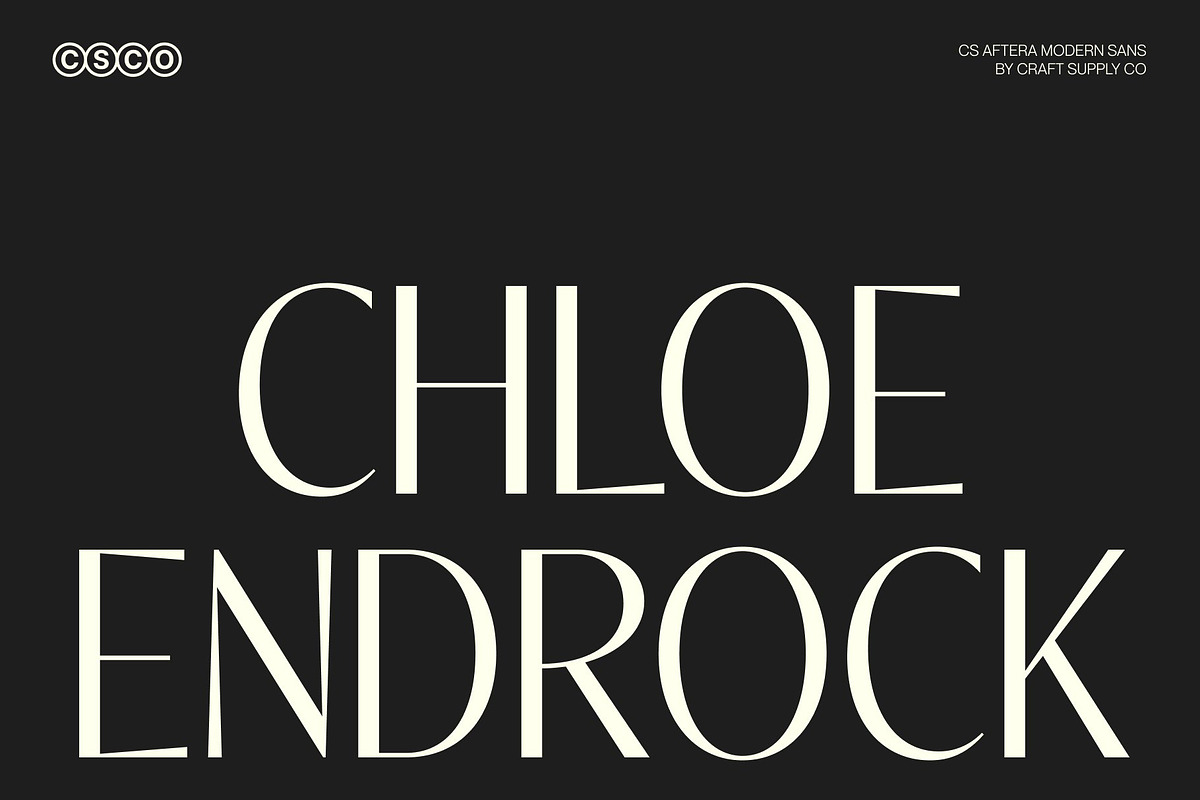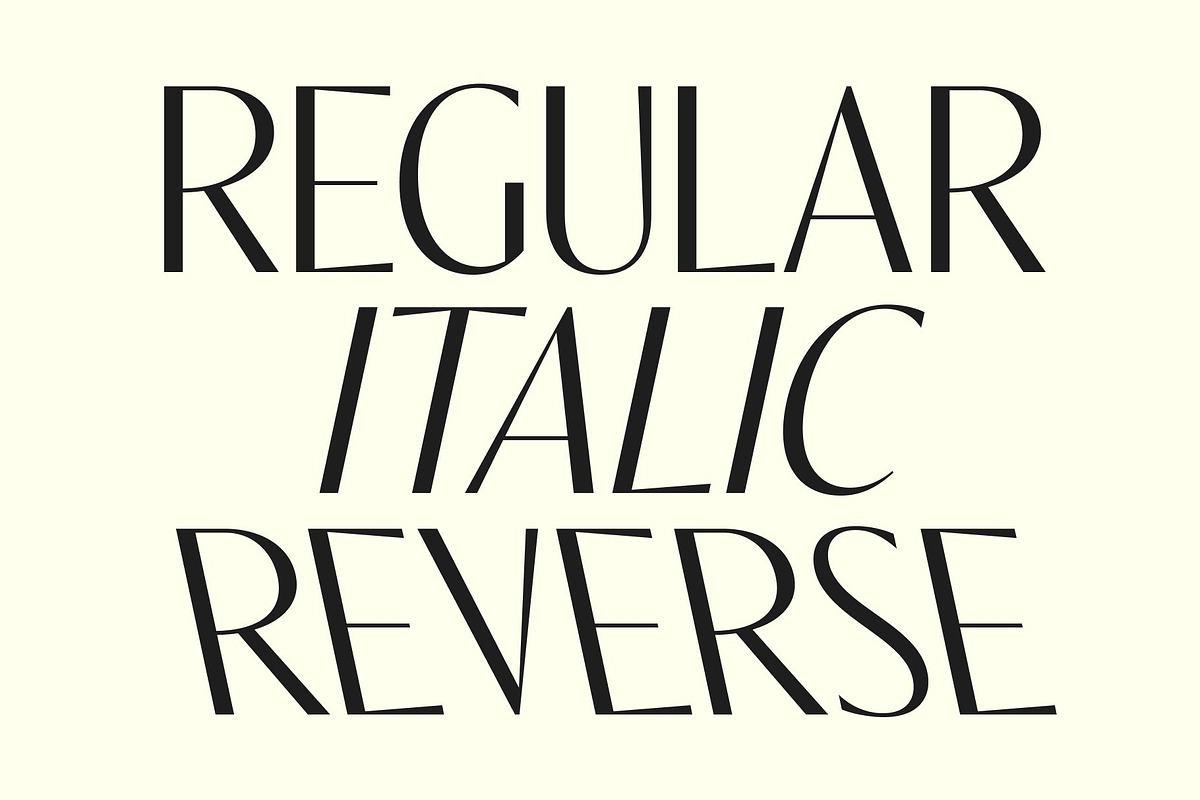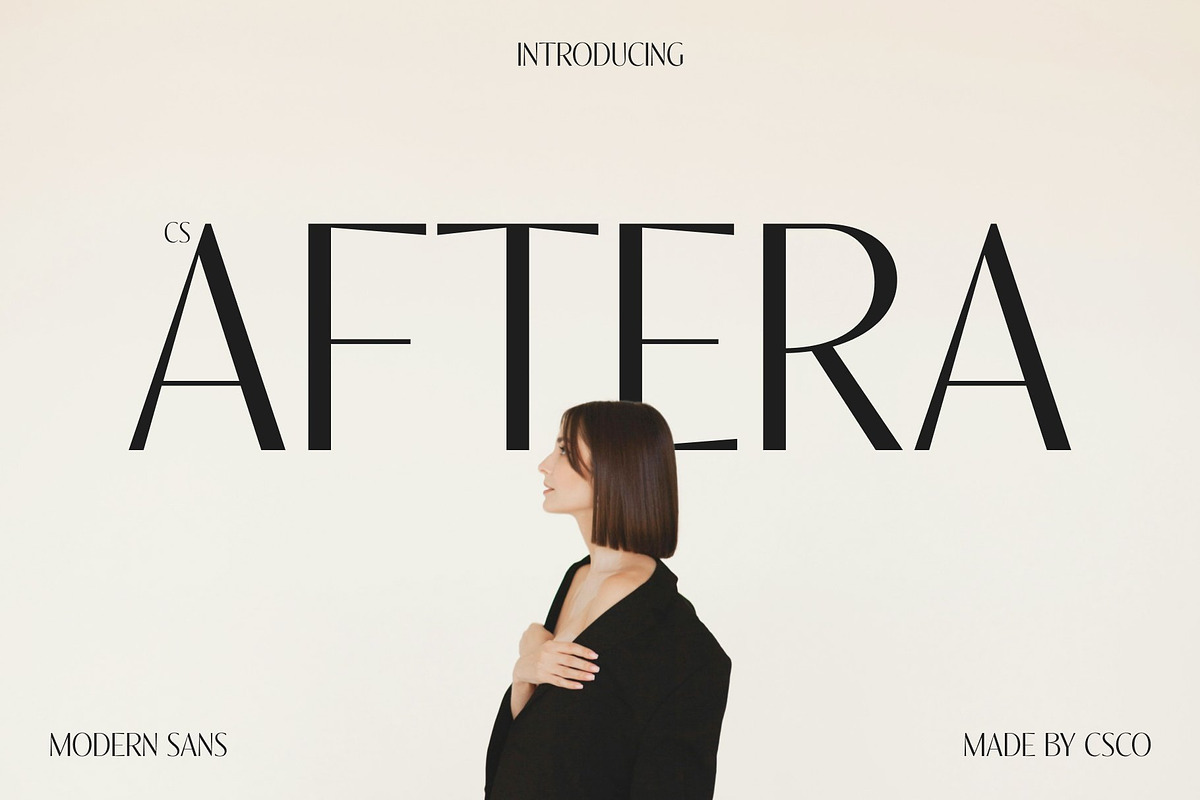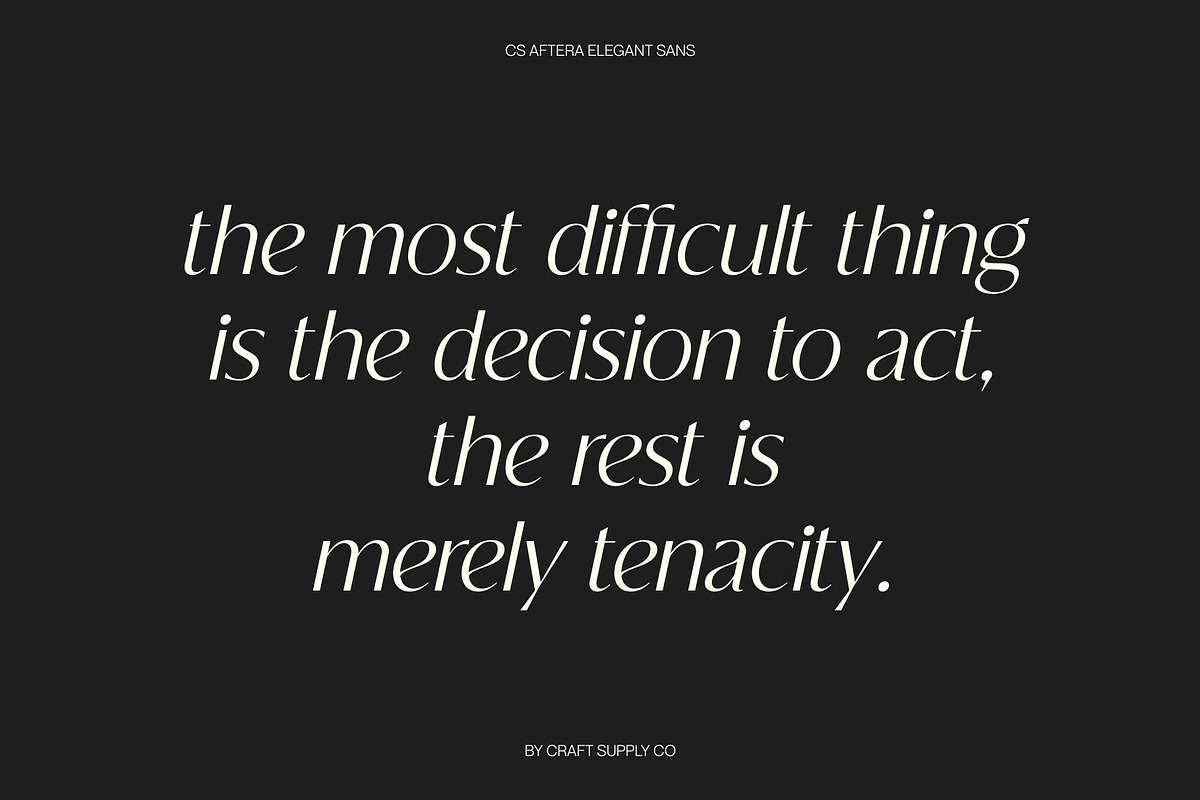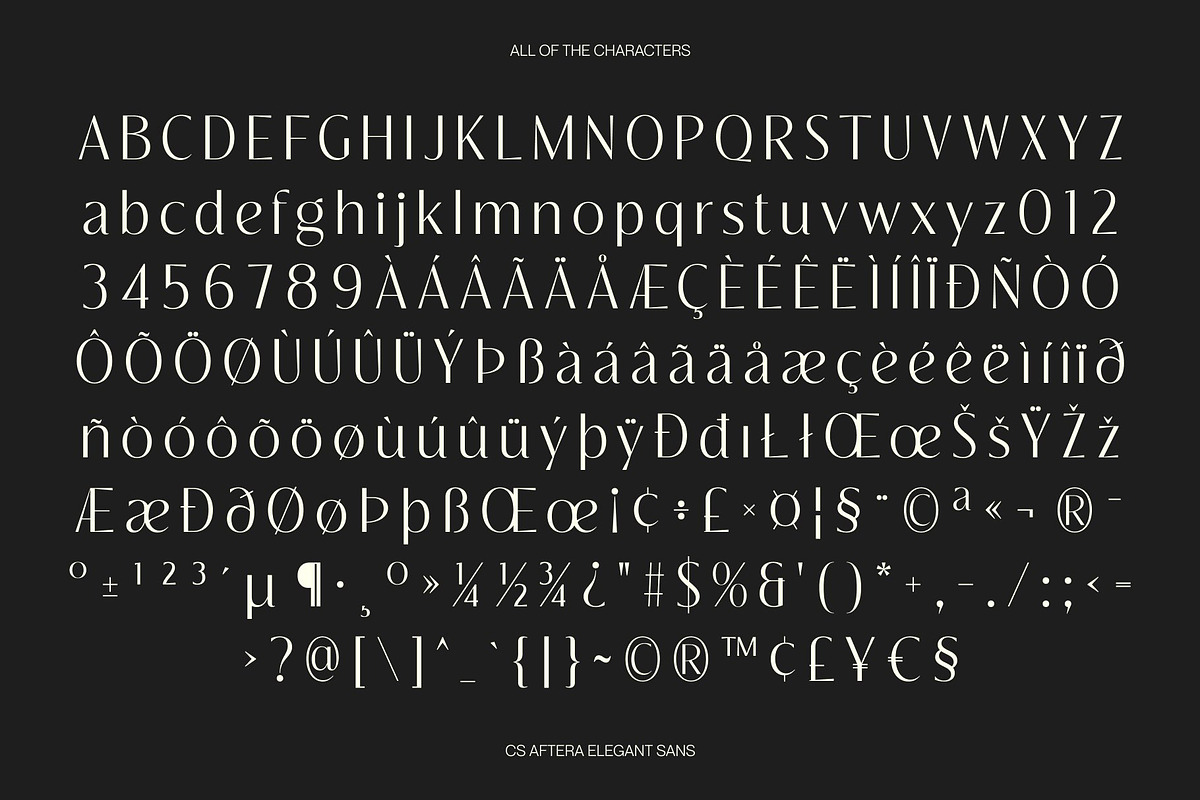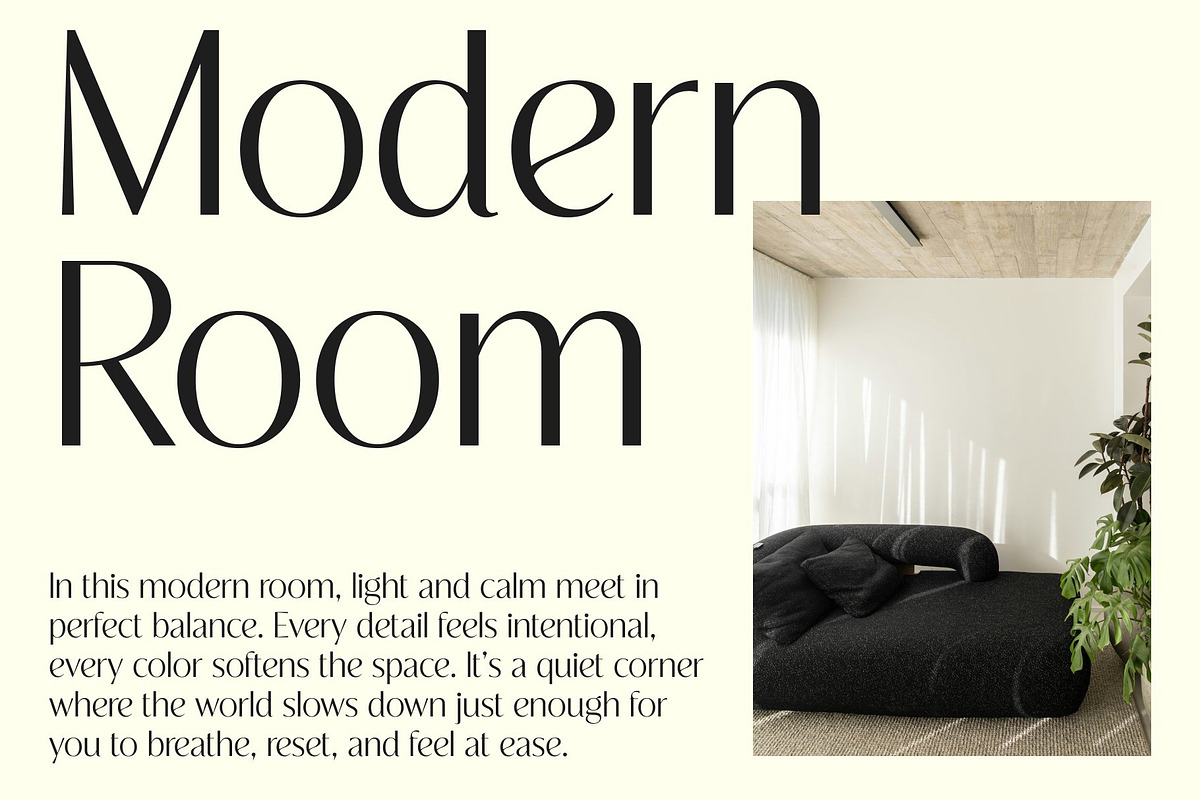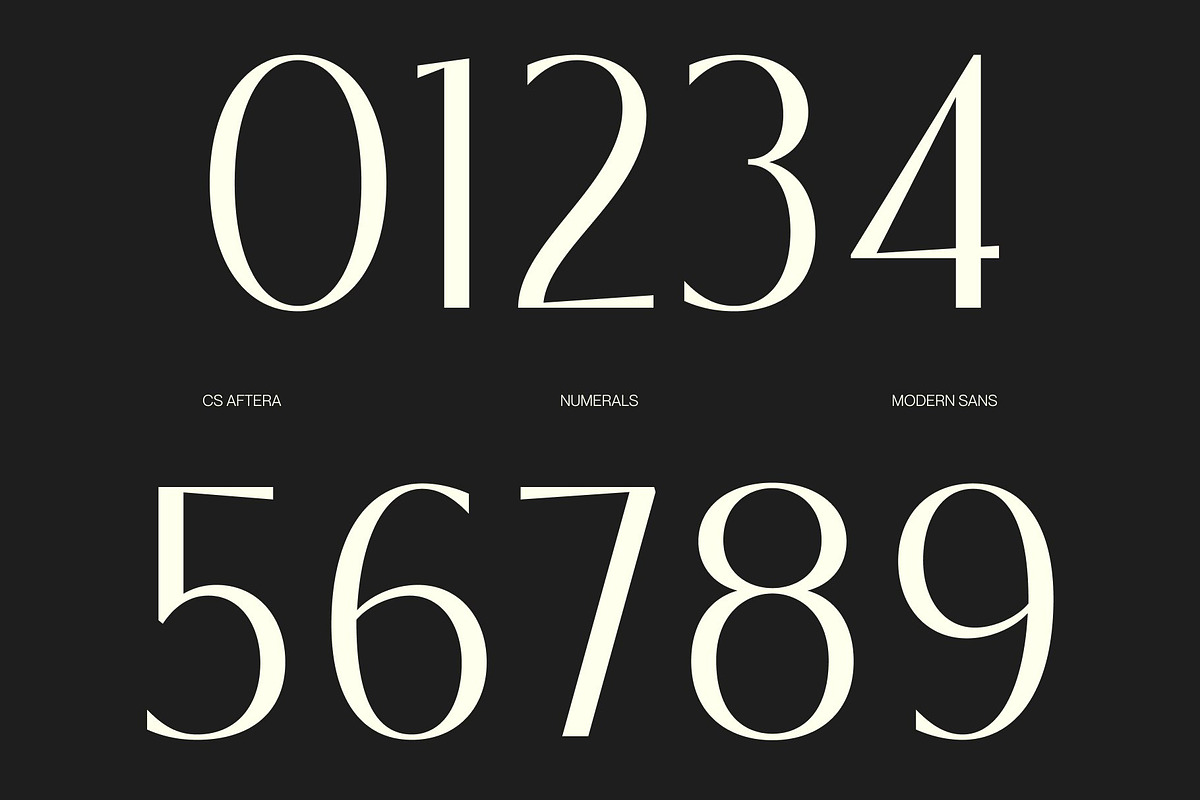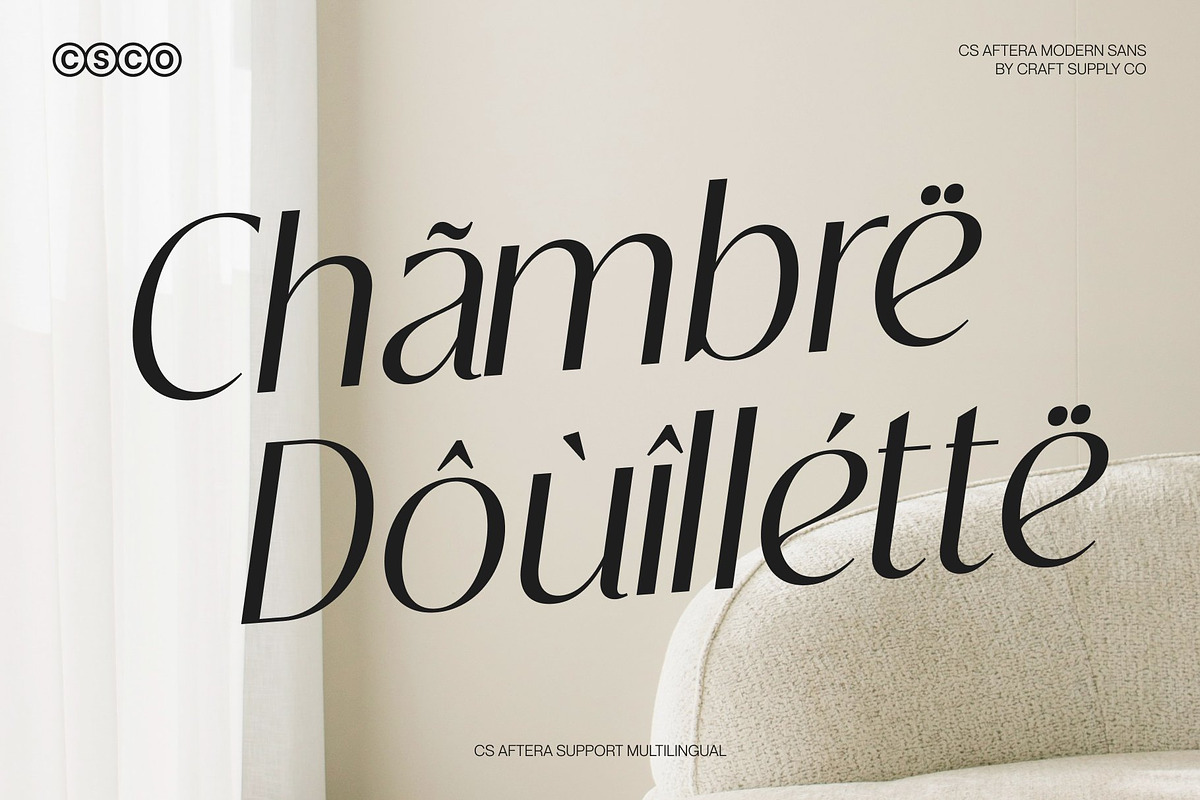
CS Aftera – Modern Sans Serif
CS Aftera – Modern Sans Serif with Sleek Minimalist Style
Modern Sans Serif with Clean Contemporary Design This is a modern sans serif font crafted to deliver a sleek, clean, and contemporary typographic voice. With its minimalist structure and balanced proportions, this typeface communicates clarity and professionalism in every letterform. It is designed for creators who value simplicity, elegance, and modern visual appeal.
Minimalist Shapes with Professional Presence The letterforms feature smooth lines and refined geometry, creating a polished and highly readable appearance. Its uncluttered design allows content to shine while maintaining a sophisticated tone. This minimalist approach ensures the font feels timeless, adaptable, and effortlessly stylish.
Contemporary Style with Versatile Character This font blends modern aesthetics with functional design, making it suitable for a wide range of creative directions. Its professional personality works beautifully in both bold headlines and subtle body text, offering flexibility without losing visual impact. The result is typography that feels fresh, balanced, and confident.
Perfect for Branding, Editorials, and Creative Projects From branding and posters to editorial layouts and digital campaigns, this font provides a versatile typographic solution. Its sleek and contemporary character ensures your designs look professional, modern, and visually engaging across every platform.
CS Aftera Regular
CS Aftera Italic
CS Aftera Reverse Italic